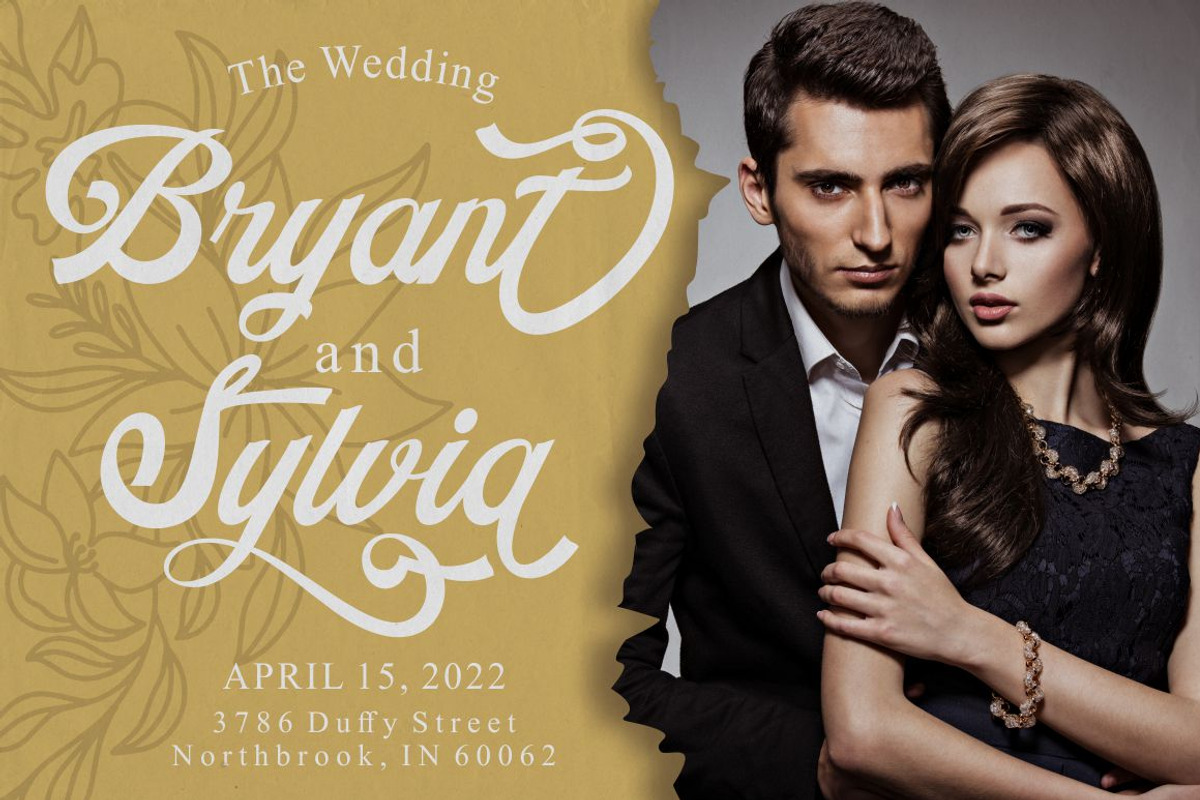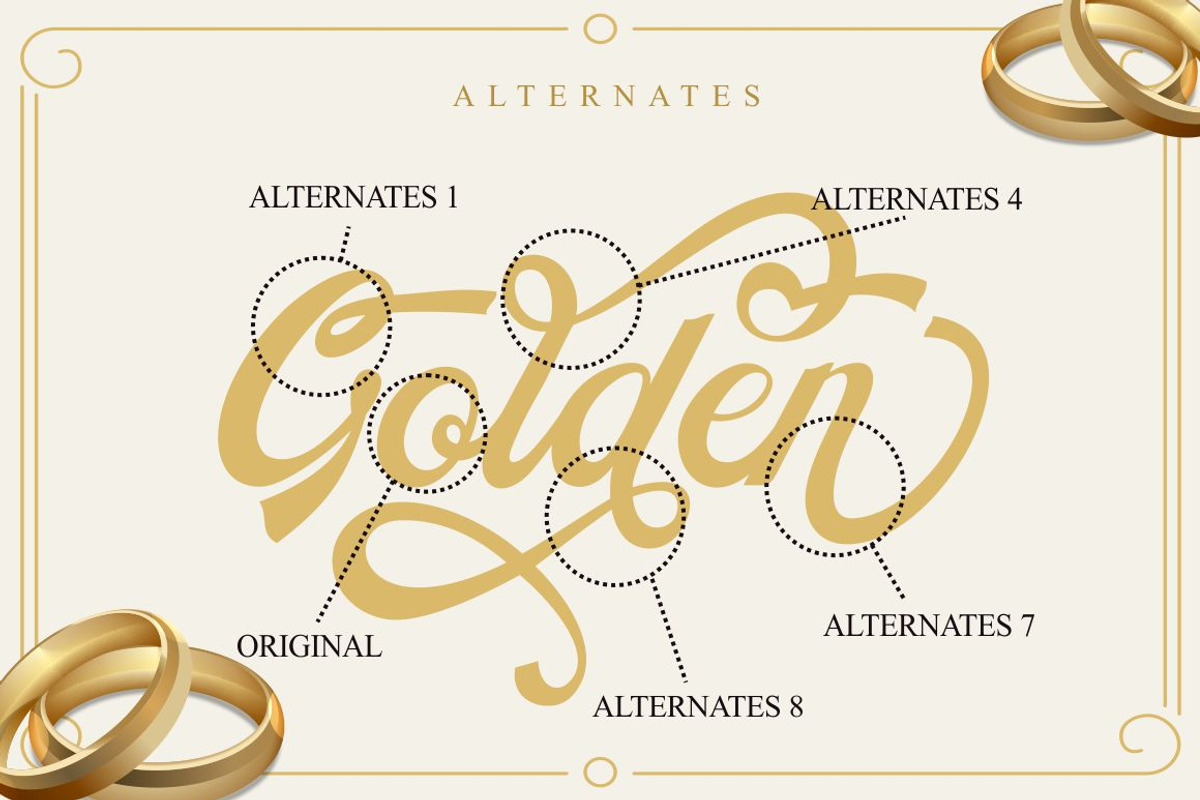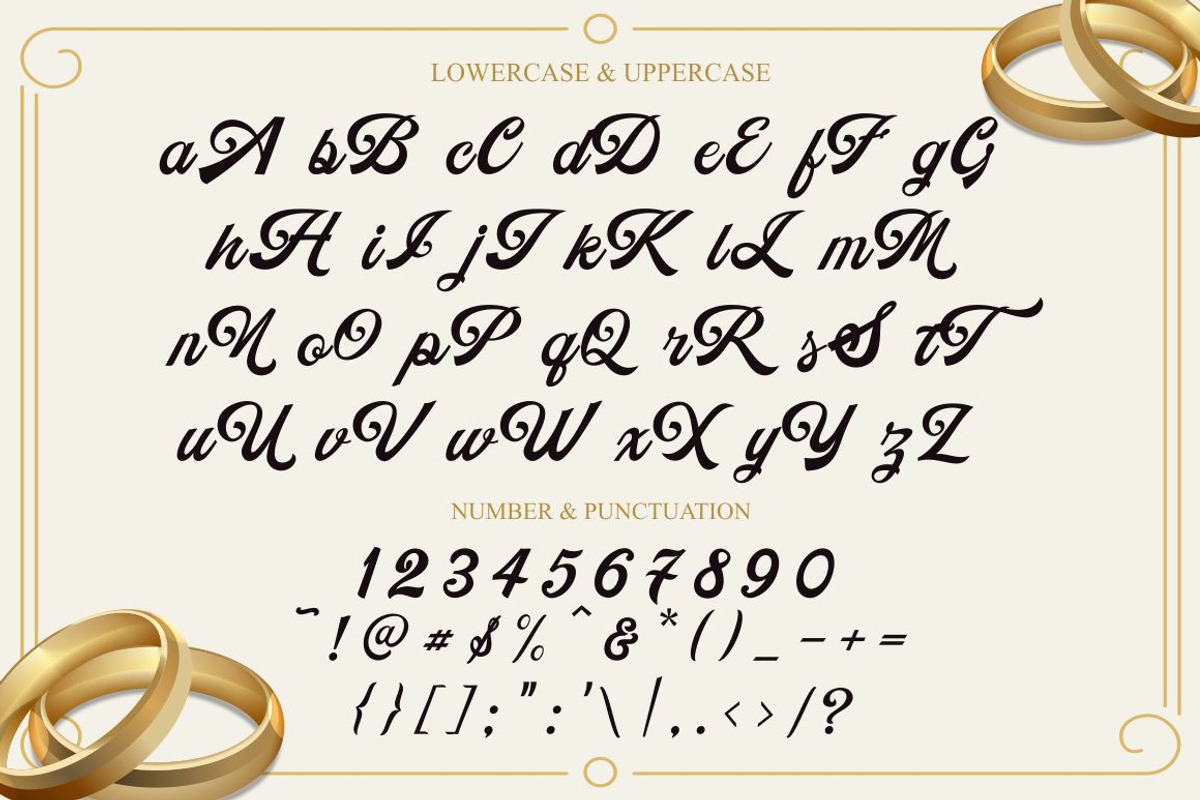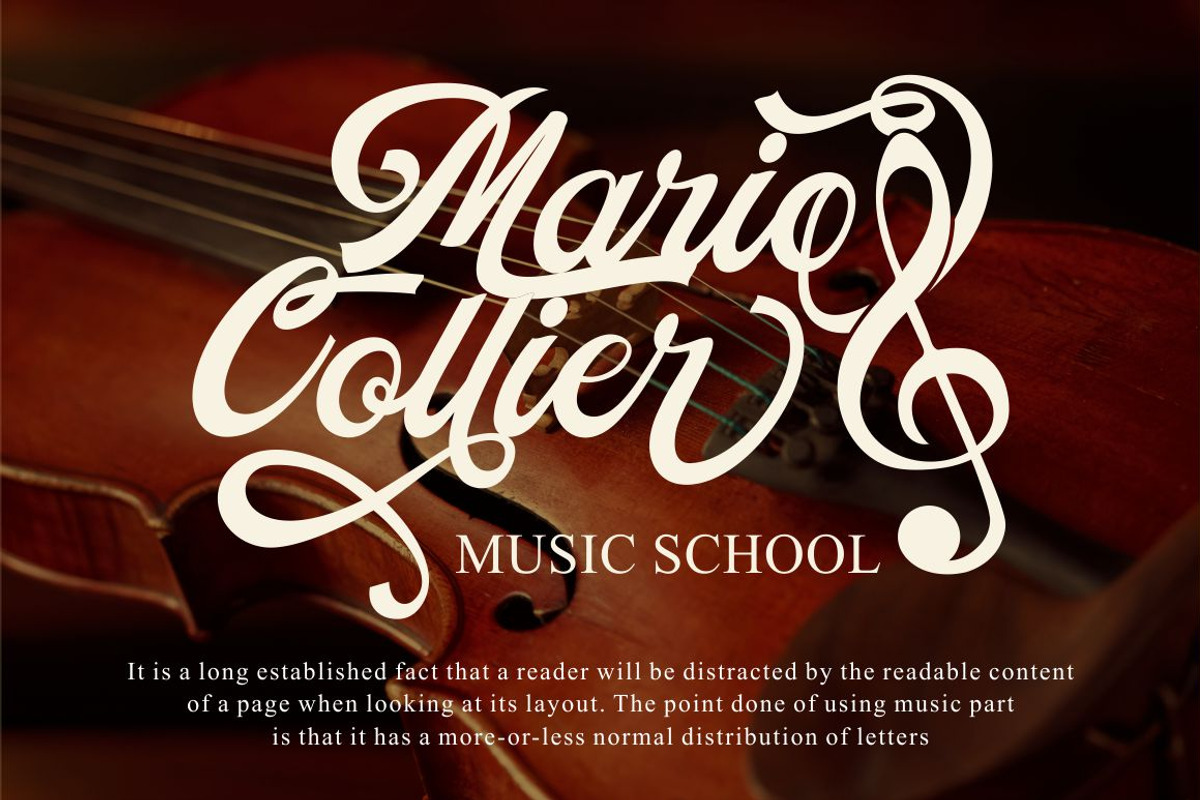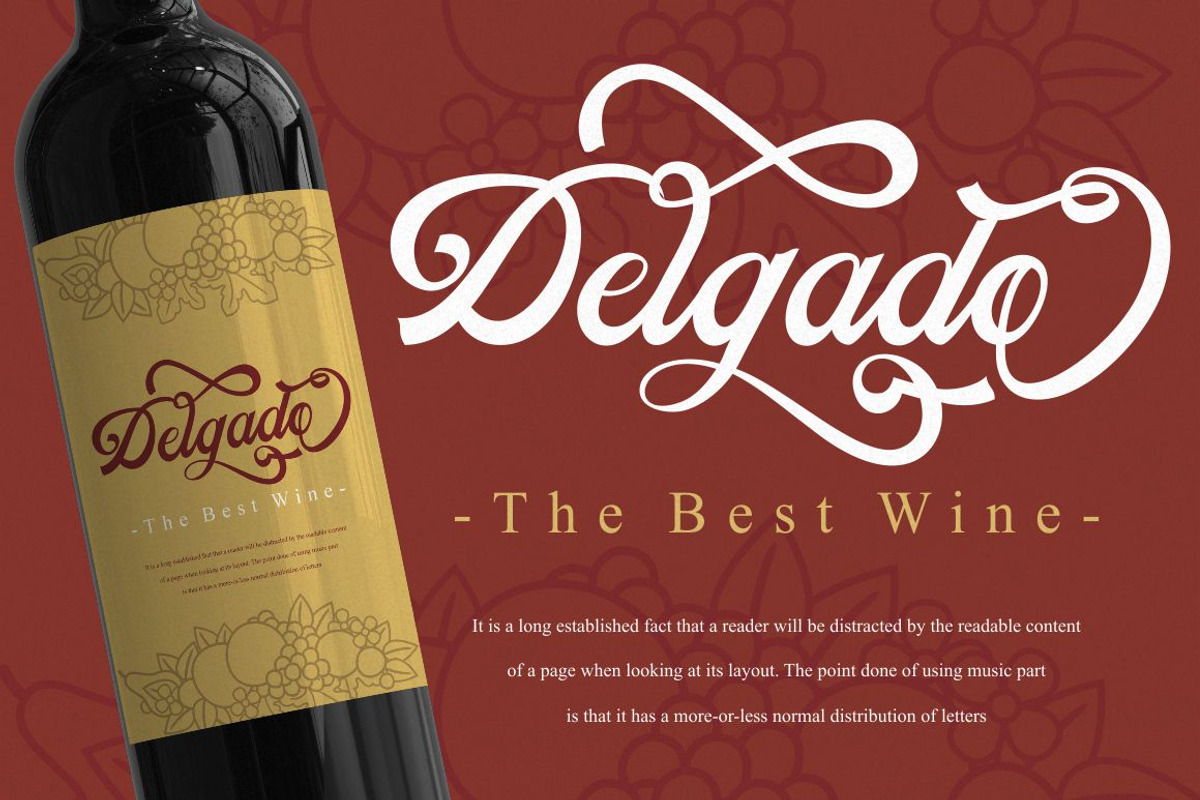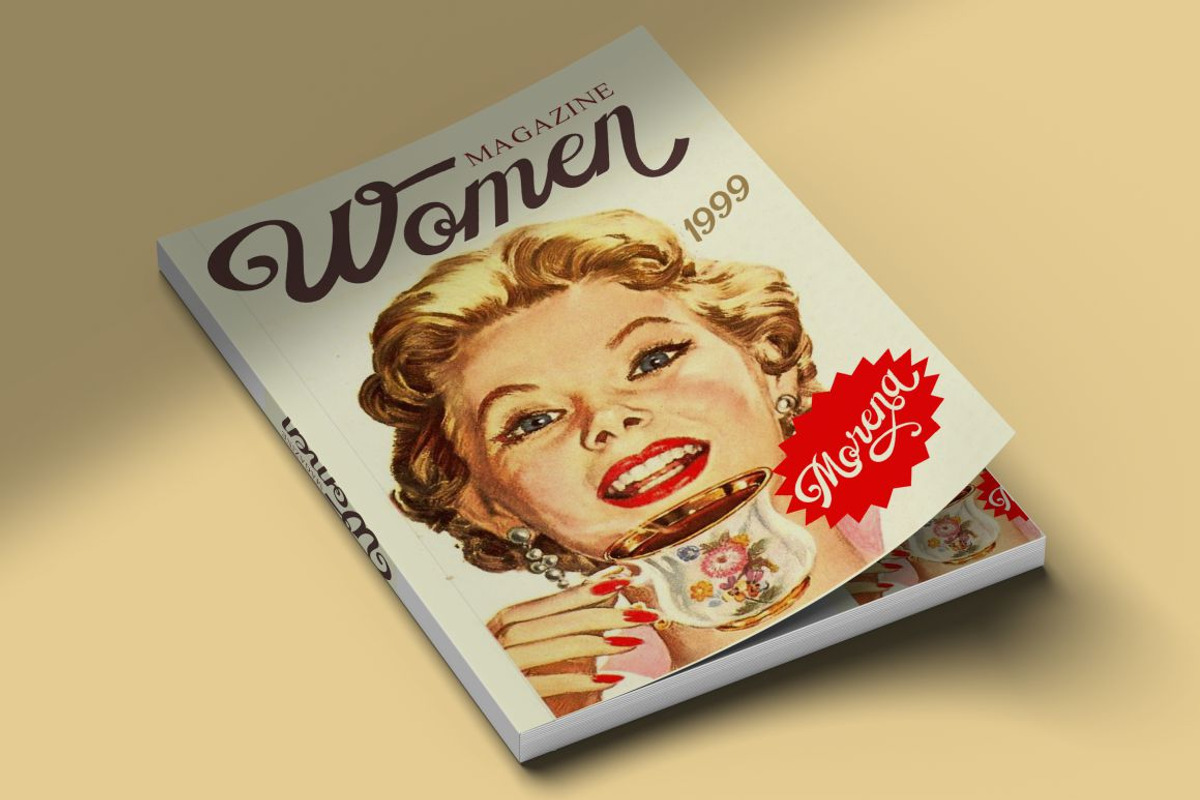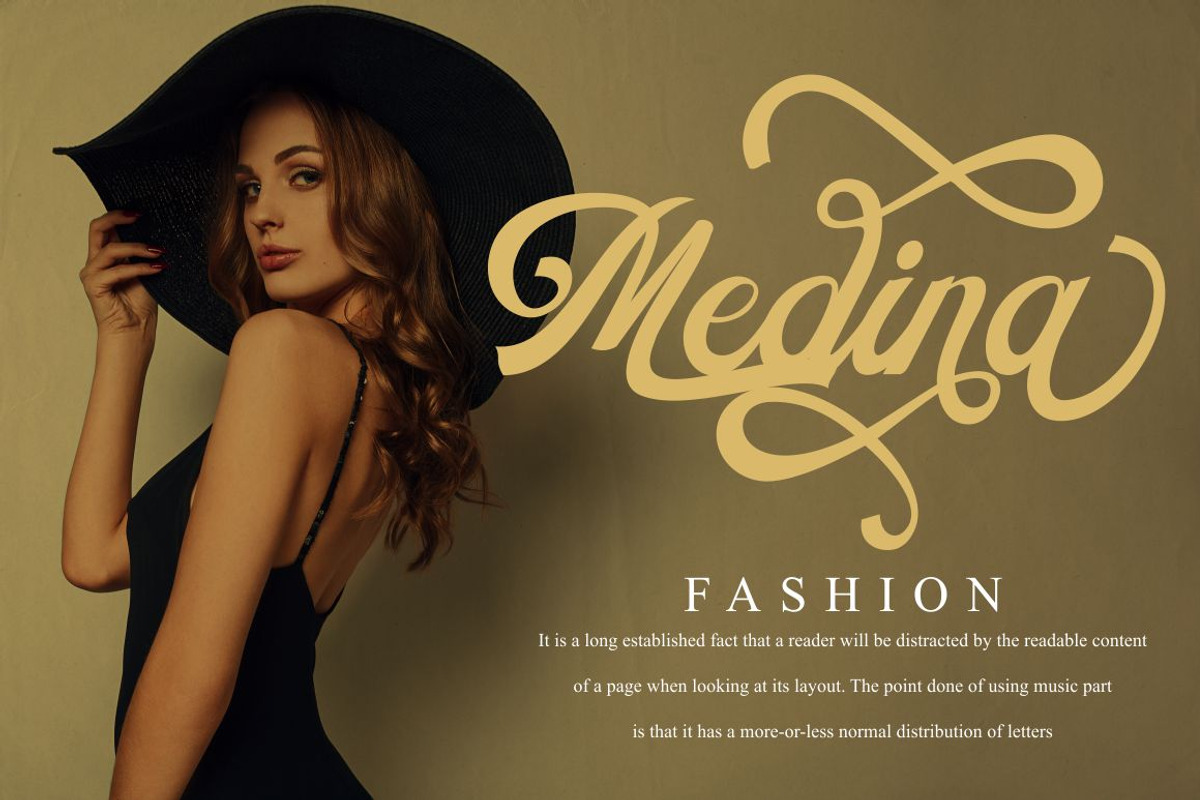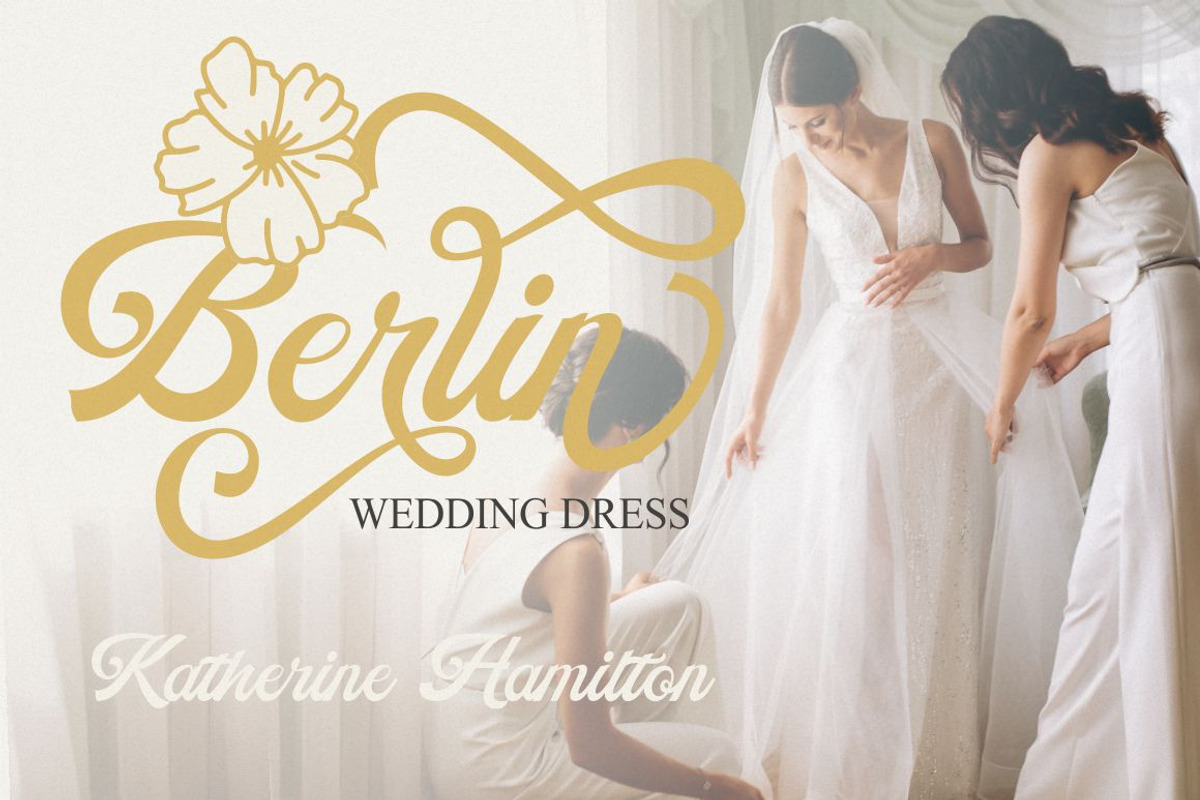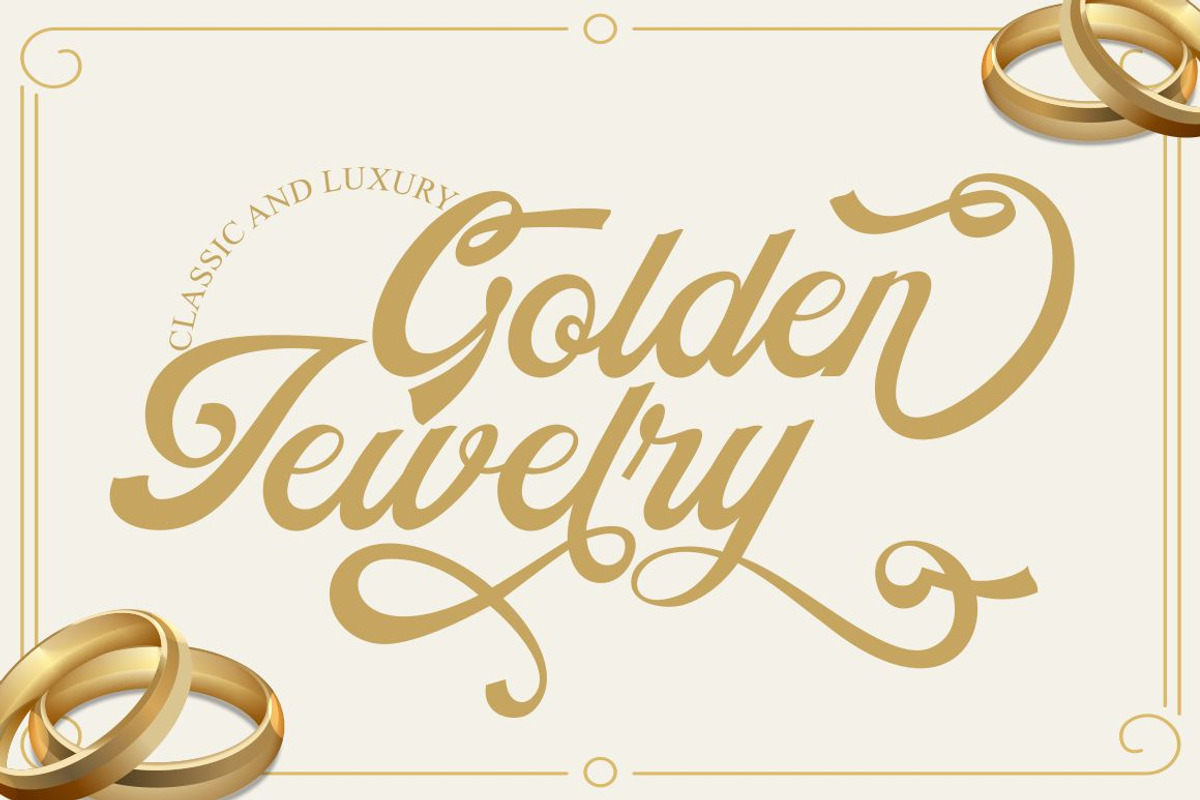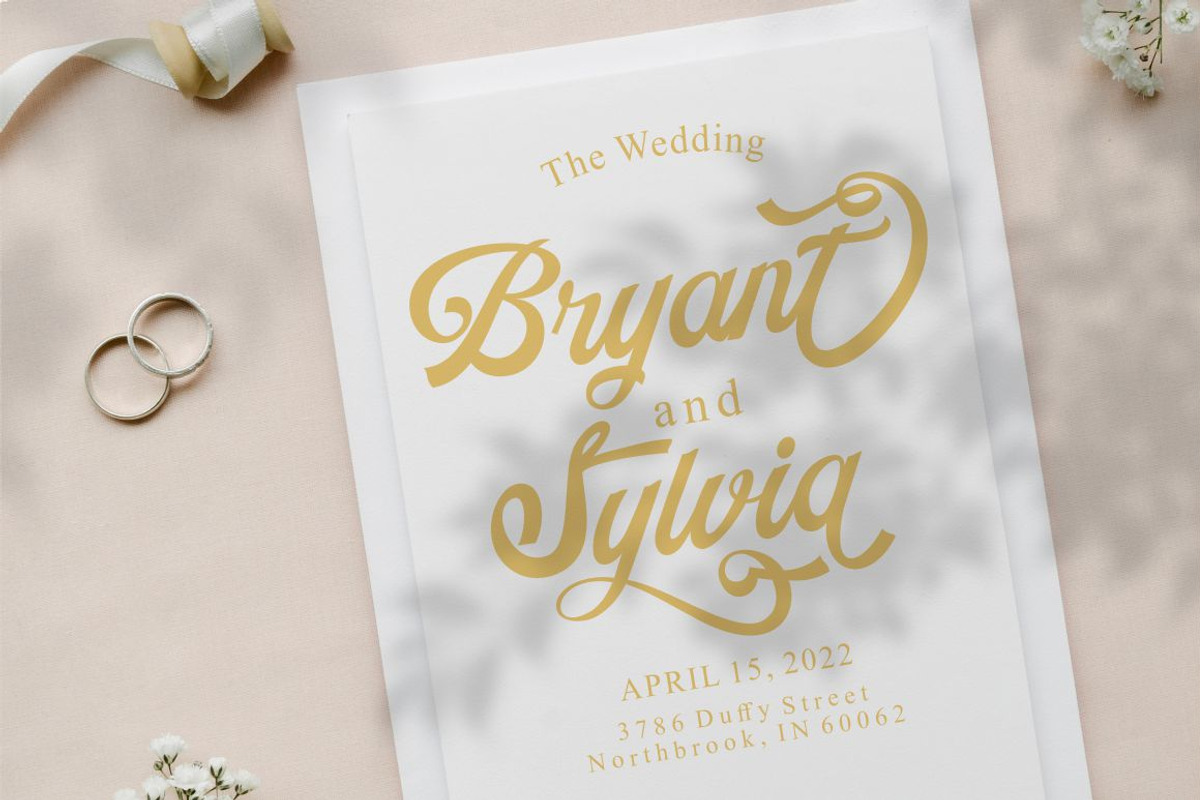
Golden Jewelry - Classic And Luxury
Golden Jewelry - Classic And Luxury Script
Golden Jewelry - Classic And Luxury Script. GoldenJewelry is calligraphy font with a classic style and a luxury touch of elegance, and this font font inspired by delicate inky hand lettering, gorgeous wedding calligraphy and trending minimal branding designs
Golden Jewelry designed to work together in harmony that makes it very suitable for wedding media, book covers, greeting cards, logos, branding, business cards and certificates, even for any design work that requires a classic, formal or luxurious
The alternative characters were divided into several Open Type features such as Swash, Stylistic Sets, Stylistic Alternates, Contextual Alternates, and Ligature. The Open Type features can be accessed by using Open Type savvy programs such as Adobe Illustrator, Adobe InDesign, Adobe Photoshop Corel Draw X version, And Microsoft Word. This font is also support multi language.
- Opentype (Alternates And Ligatures)
- Number, Punctuation And Symbols
- Multilanguage Support.